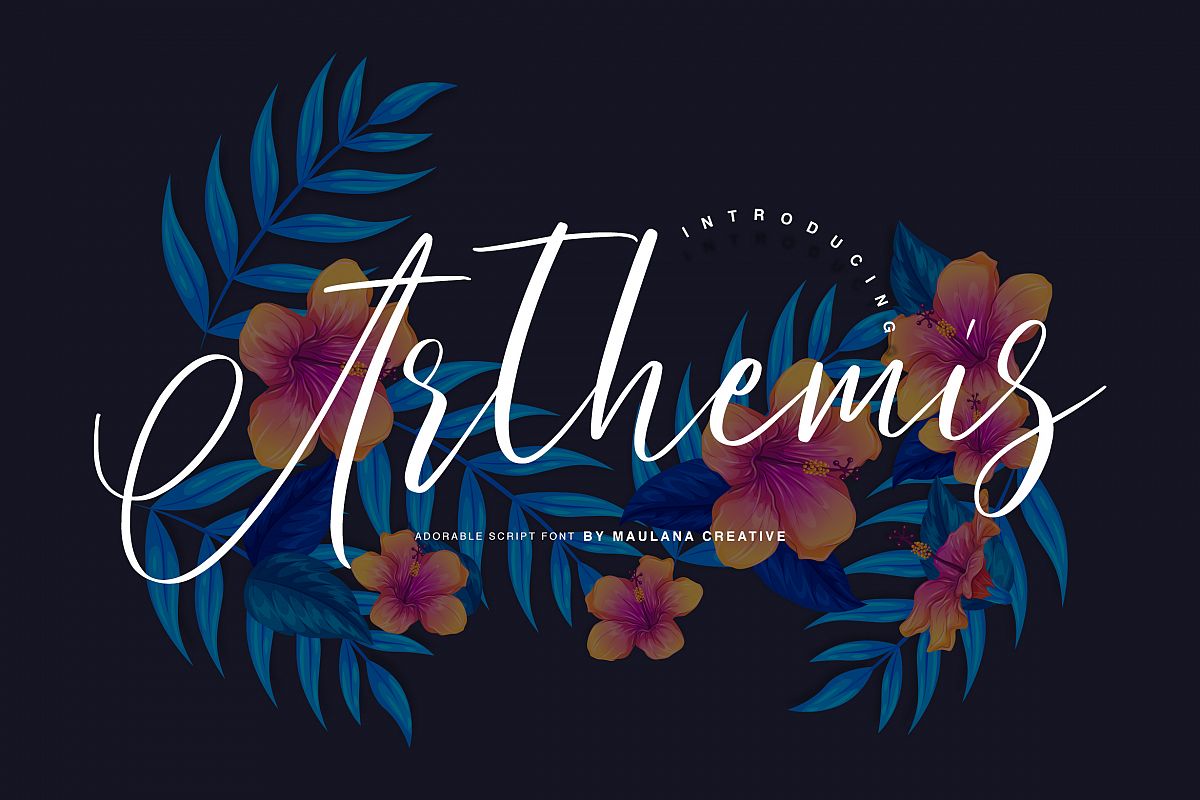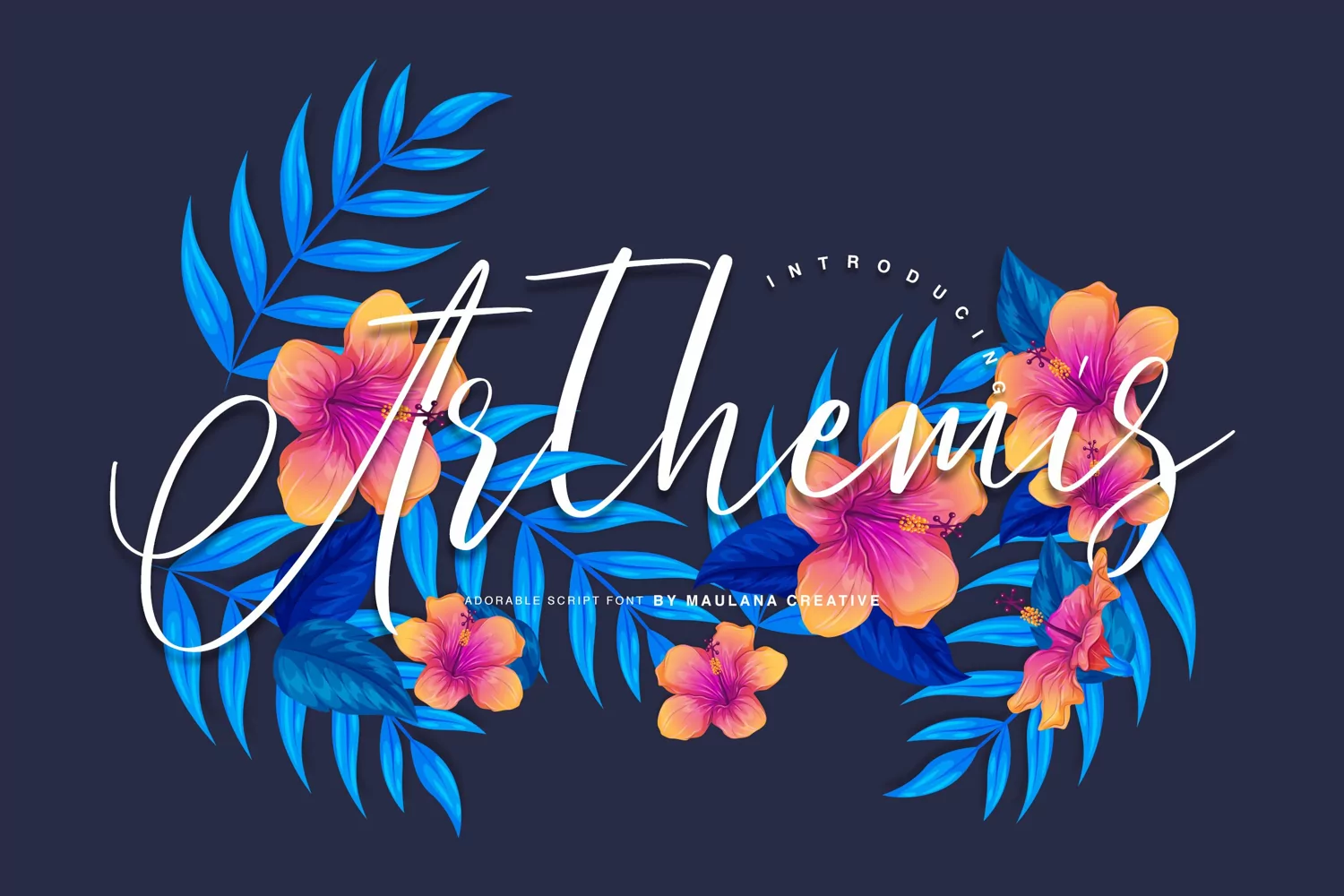
Arthemis Script - Logo Font
Give your designs an authentic handcrafted feel. "Arthemis Script" is perfectly suited to signature, stationery, logo, typography quotes, magazine or book cover, website header, clothing, branding, packaging design and more.